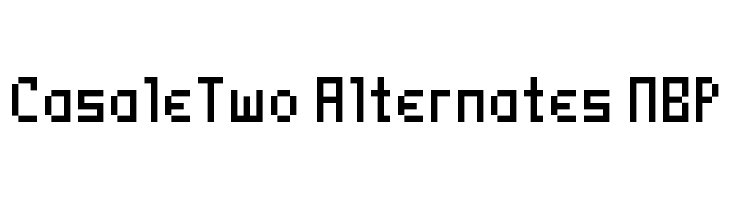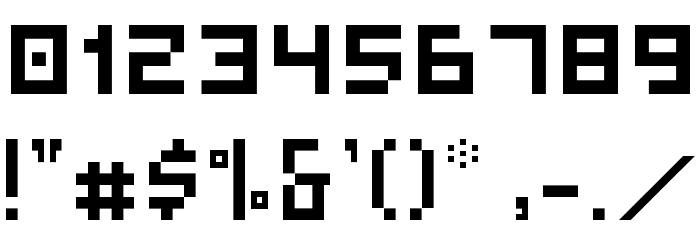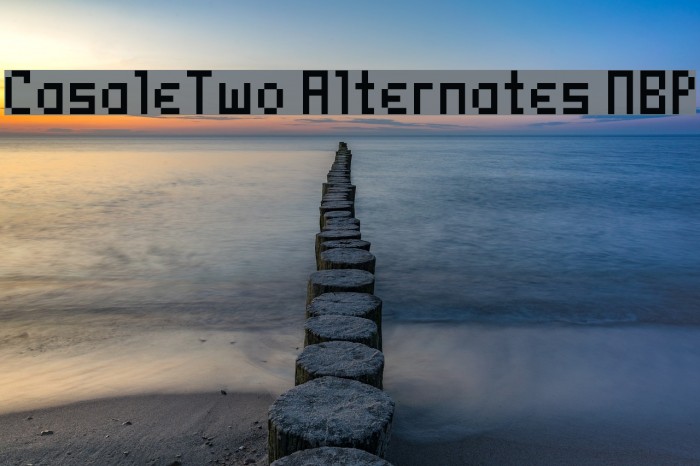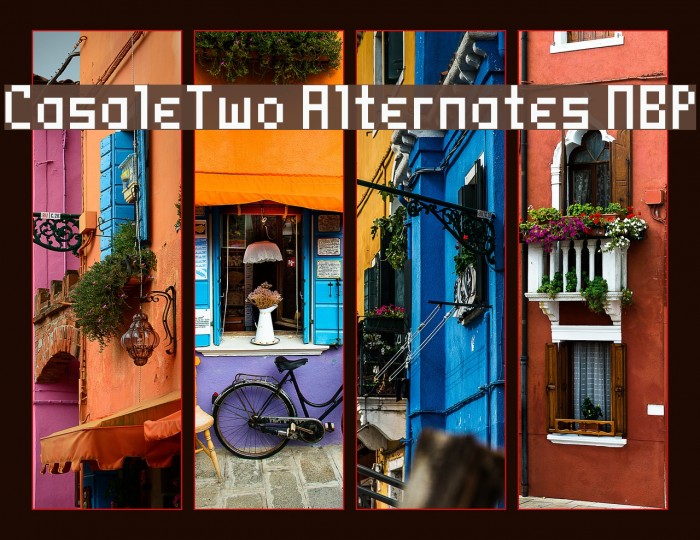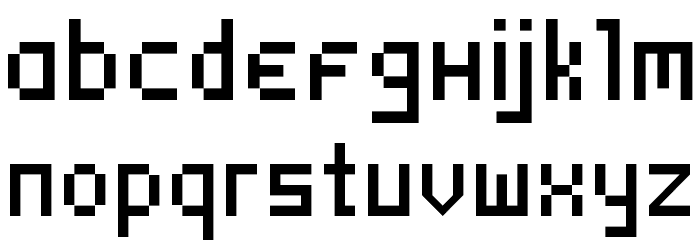
CasaleTwo Alternates NBP Font
This font exhibits a bold, geometric style with a distinctly digital and pixelated appearance. Each character is constructed with sharp, angular lines and consistent stroke widths, giving it a blocky and structured look. The uppercase and lowercase letters maintain a uniform height, contributing to a cohesive visual rhythm. The numerals and special characters follow the same design principles, ensuring a seamless integration across all text elements. This font's design is reminiscent of early digital displays, making it ideal for projects that require a retro or tech-inspired aesthetic.
A bold, geometric font with a digital, pixelated style.
• Proposed Projects: Ideal for video game design, tech-themed posters, digital art projects, and retro-inspired branding.
• Category: Decorative/Display
• Bold: Yes
• Italic: No
• Weight: Bold
• Width: Normal
• Character Spacing: Normal
• Contrast: Low
• Overall Style: Retro, Digital
• Use Case: Headlines, Logos, Digital displays